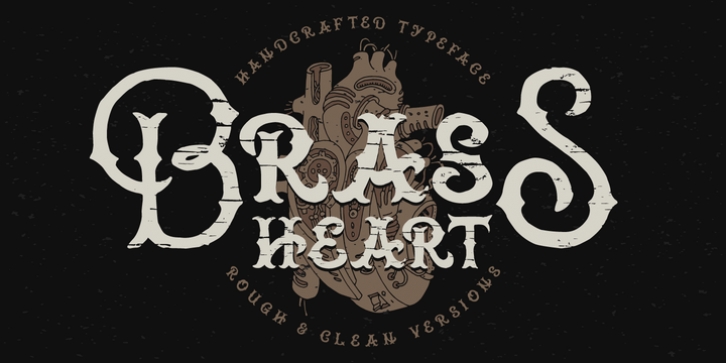
Brass Heart was designed by Gleb Guralnyk and published by Gleb Guralnyk. Brass Heart contains 2 styles and family package options.
Hi! Presenting a handcrafted font Brass heart. This vintage steampunk style typeface has two variations: with rough surface and simple one.